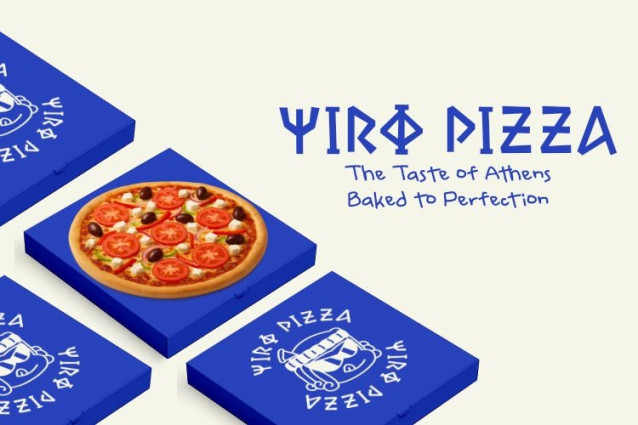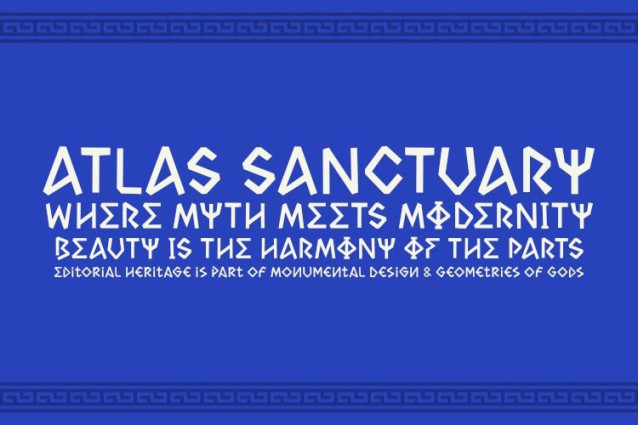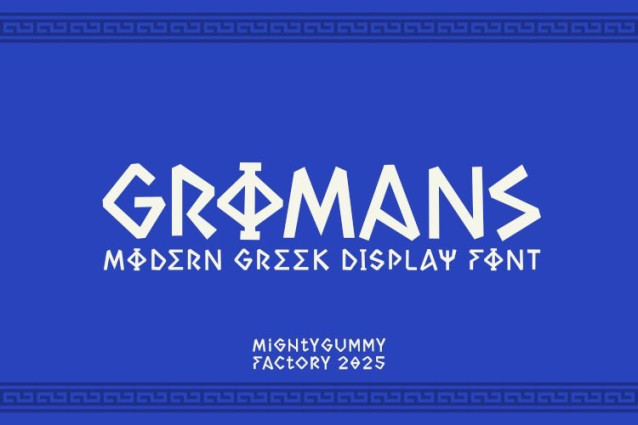
MGF Gromans Font
MGF Gromans Font is a bold Greek-inspired display font designed for creatives who want to blend ancient elegance with modern design. Its geometric shapes and monumental style make it perfect for logos, posters, fashion branding, editorial layouts, and product packaging. Inspired by the timeless beauty of Greek architecture and mythology, GROMANS delivers a powerful and stylish typeface that elevates any project.
GROMANS is a Greek-inspired display font that blends the power of ancient letterforms with modern geometric balance. The strong angular shapes give it a bold and monumental presence, while subtle design details make it perfect for contemporary creative use.